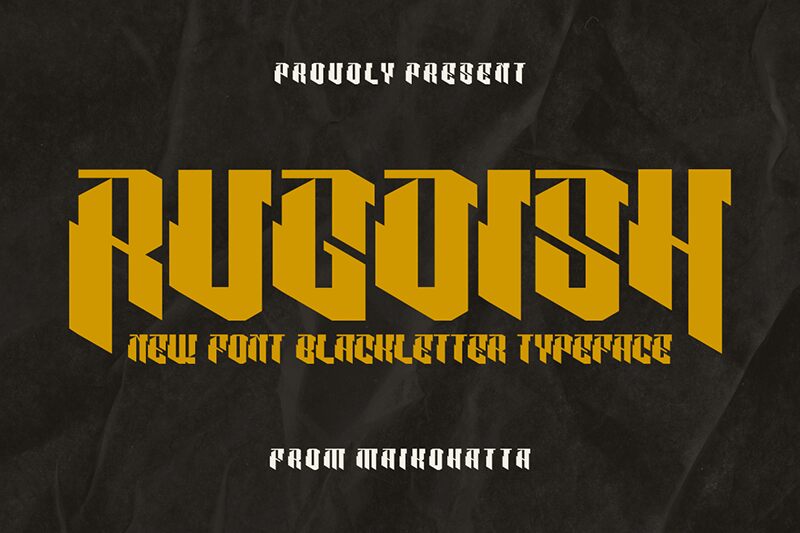
Rugdish font by Gilang Ternadho is a bold gothic-inspired typeface with an imposing presence and strong angles. The blackletter-influenced font has a dramatic aesthetic and medieval vibe that immediately attracts attention.
This free modern gothic font is perfect for tattoo designs, book covers, logos, movie titles, posters, websites, and apparel label designs among other potential projects.